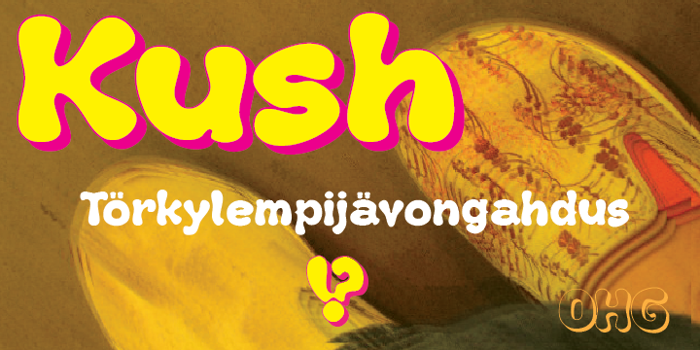
Kush Font
Fat Style
Kush is what happens when you let your fonts sit around watching cartoons and eating cake and ice-cream all day—When their vectors are freed from constraints and allowed to follow their bliss. Kush has filled its insides to just the other side of contentment and comes to you on a sugar high with a head full of Loony Tunes.